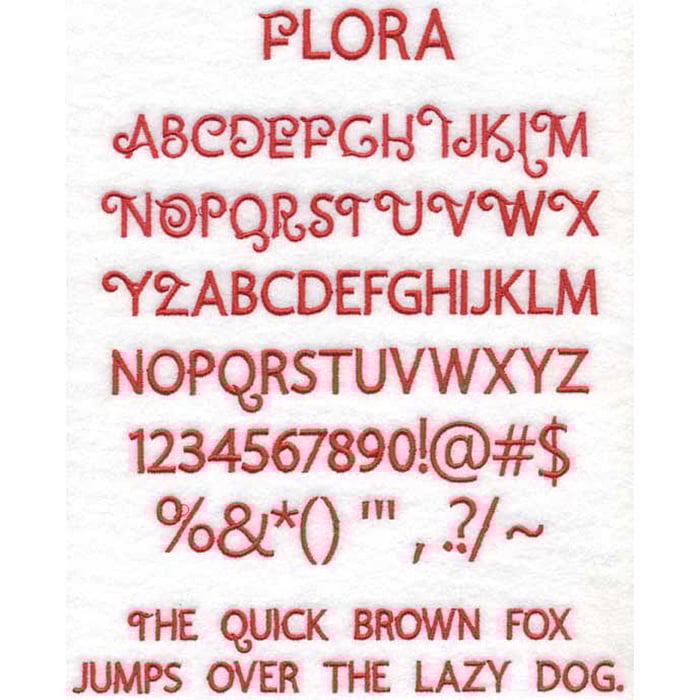
BX Native Embroidery Font: Flora
BX Native Embroidery Font:
Resizable stylized, decorative uppercase font in native BX format.
- Resizable, object-based font
- Outlines are accessible for those with appropriate modules
Each character in this alphabet is individually manually digitized; we do not use a TrueType to Stitches conversion utility to create our fonts. Additionally, stitch attributes such as stitch type, density, compensation, and underlay are optimized for each size available. Choose the size closest to what you need. Shrinking the smallest size is not recommended.
Our fonts were manually digitized; we do not use a TrueType to Stitches conversion utility to create our fonts. Plus, stitch attributes such as density, compensation, and underlay are optimized for each size available.